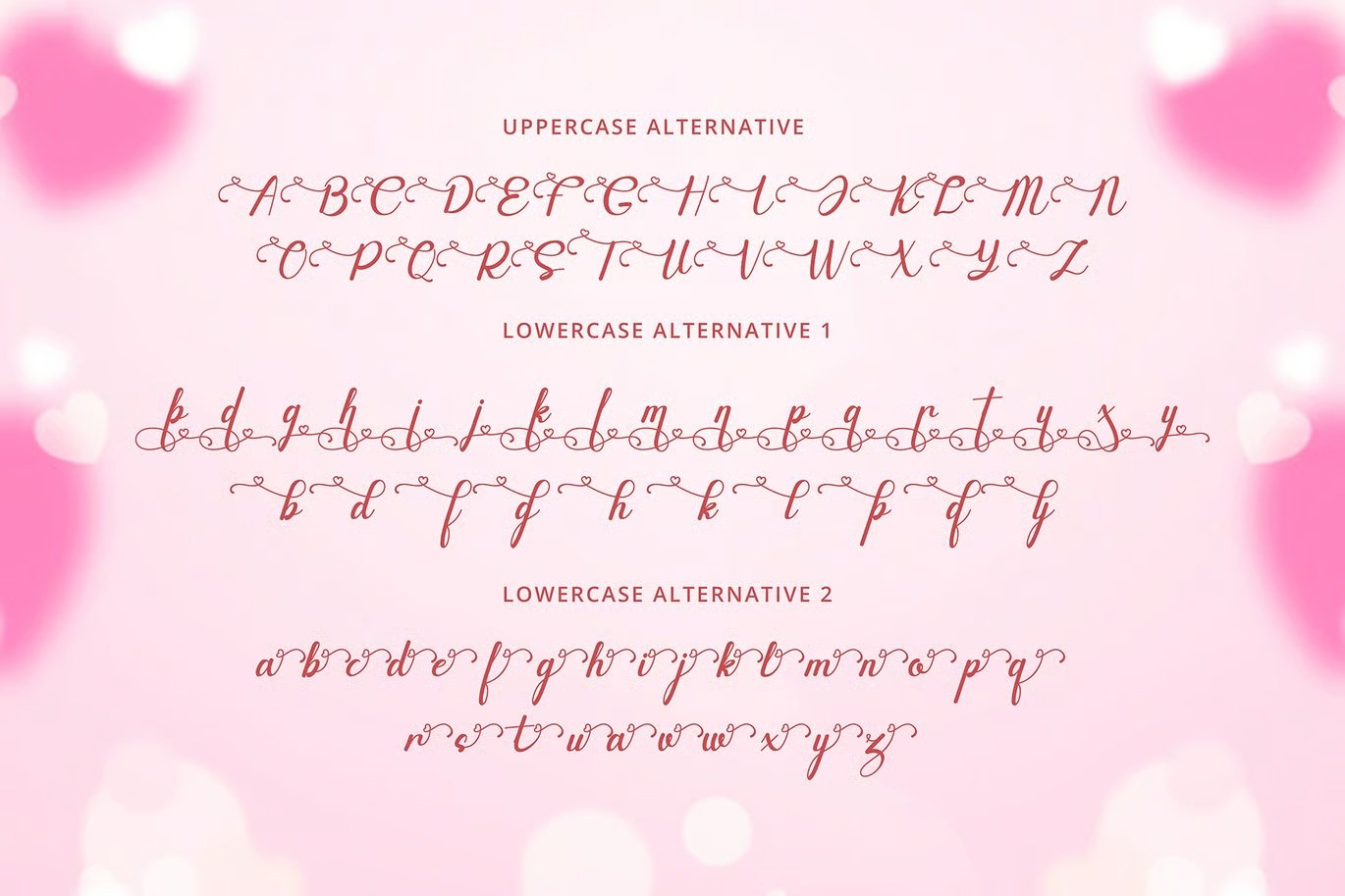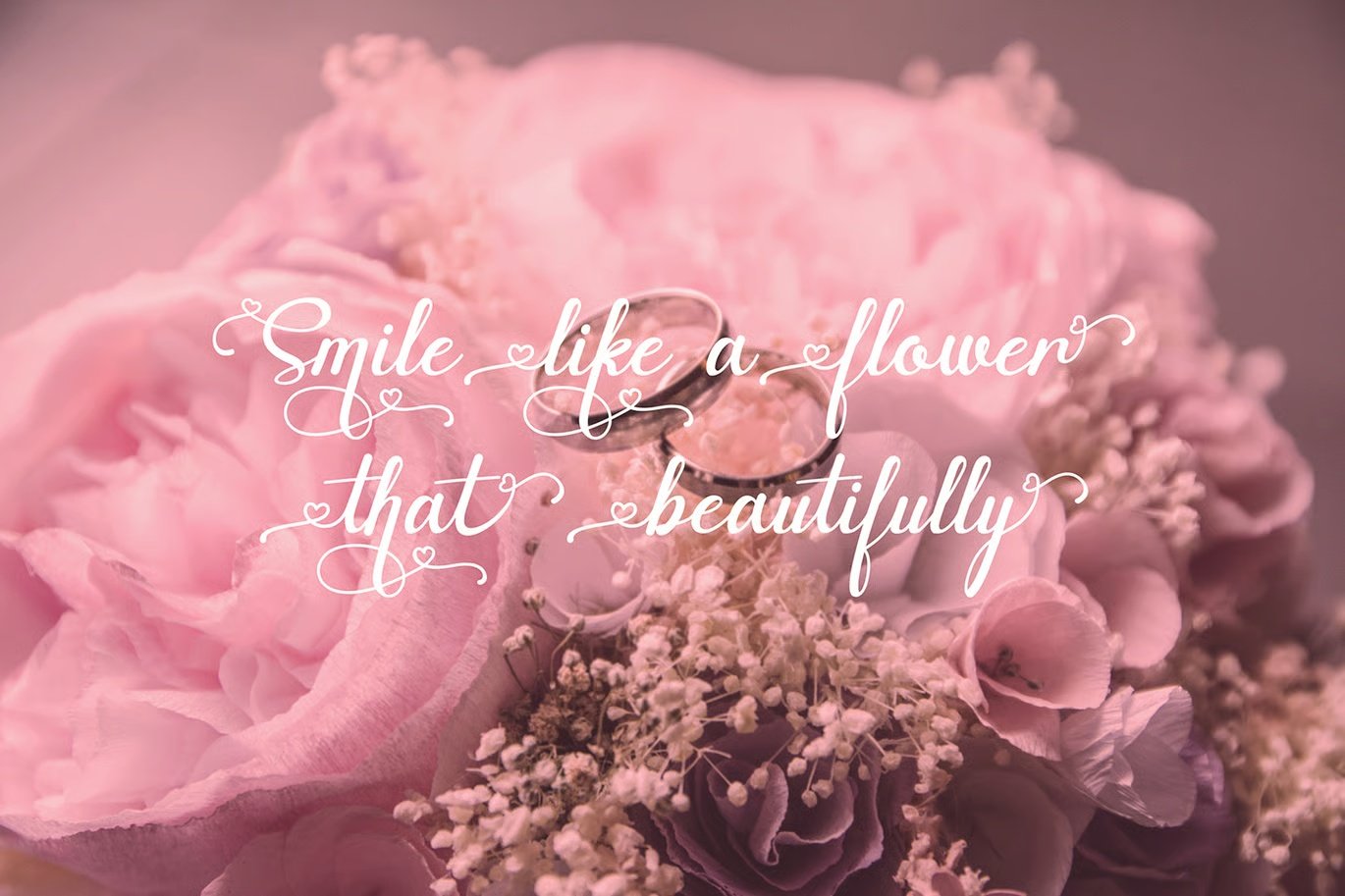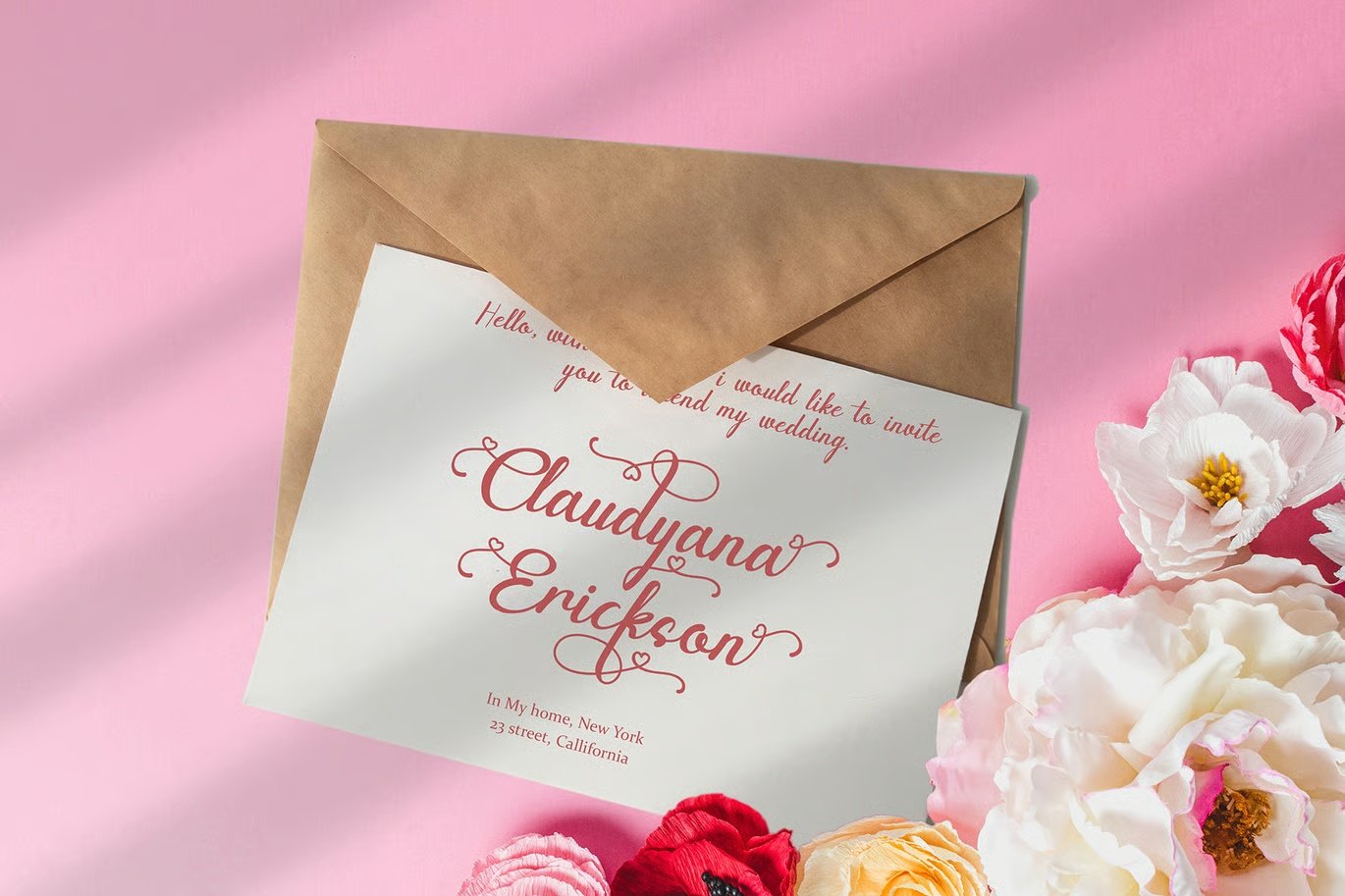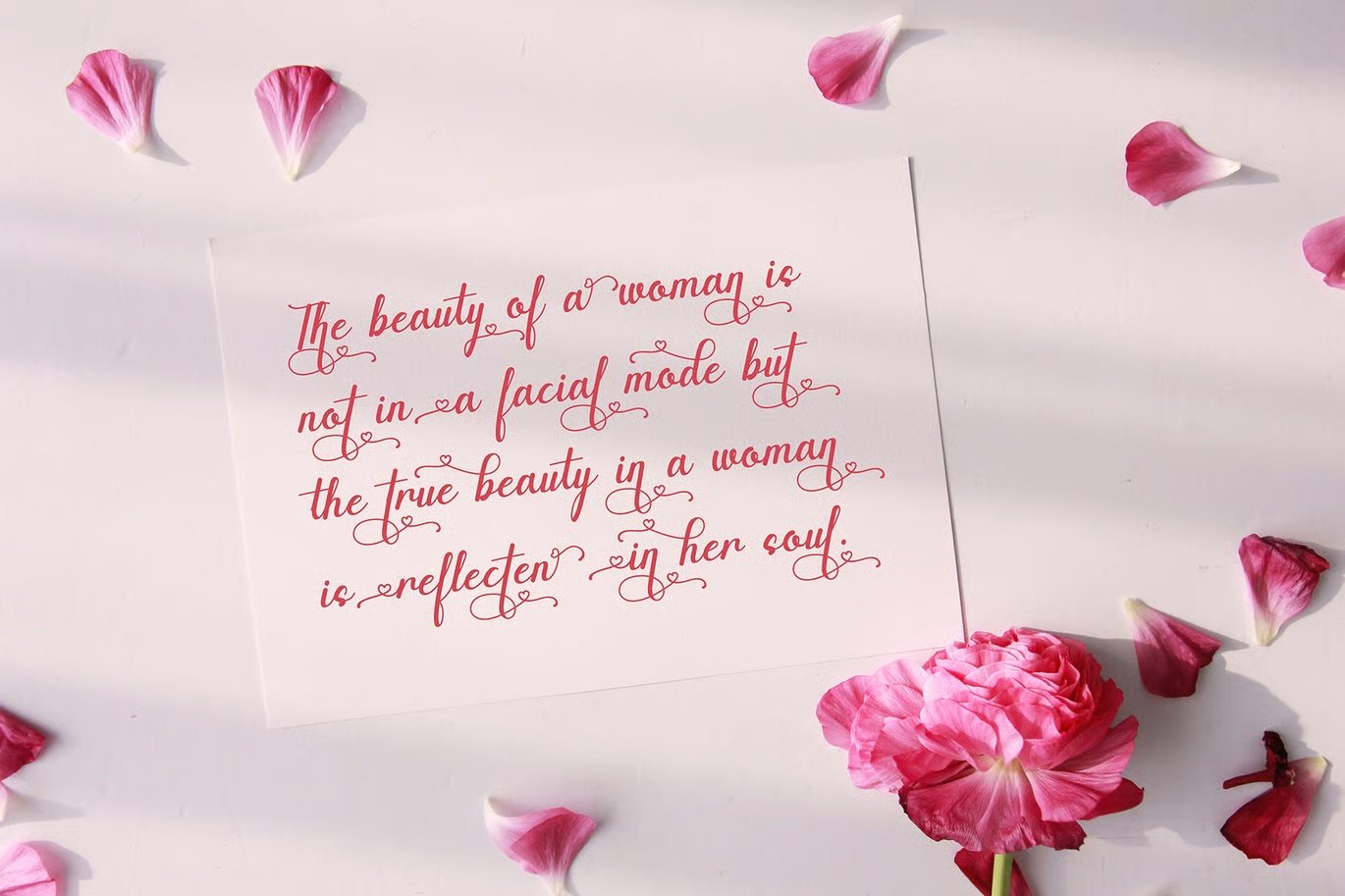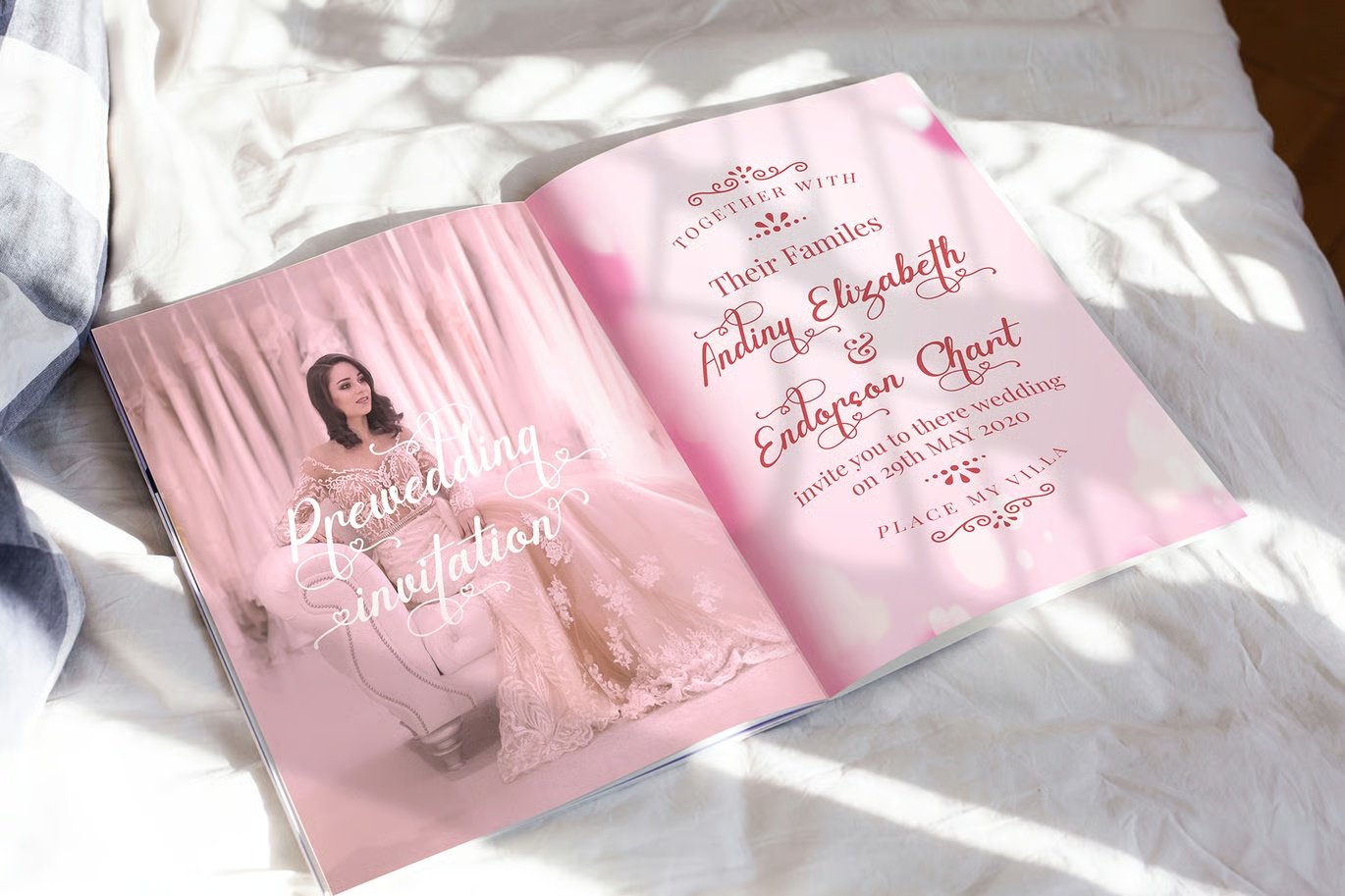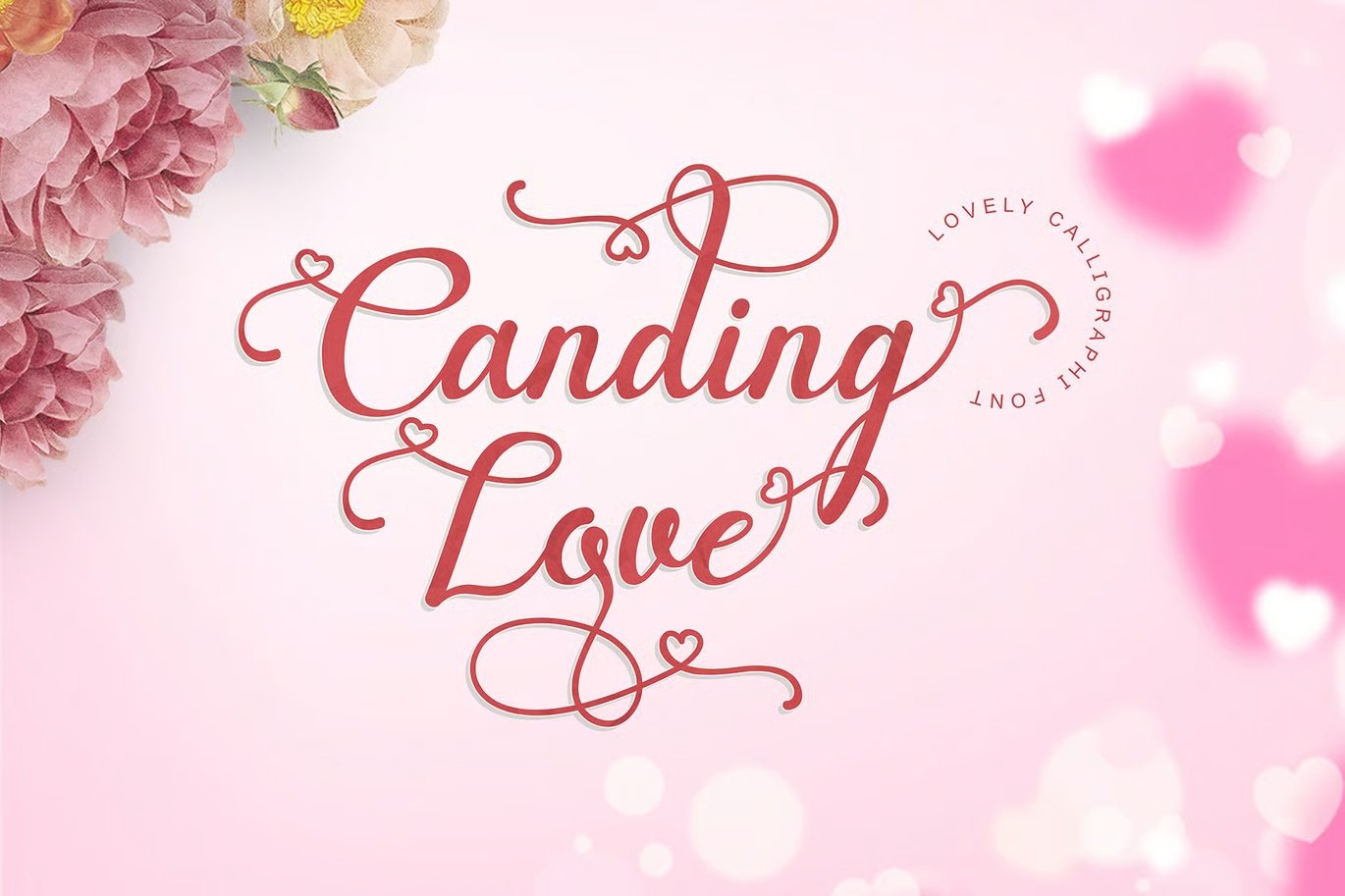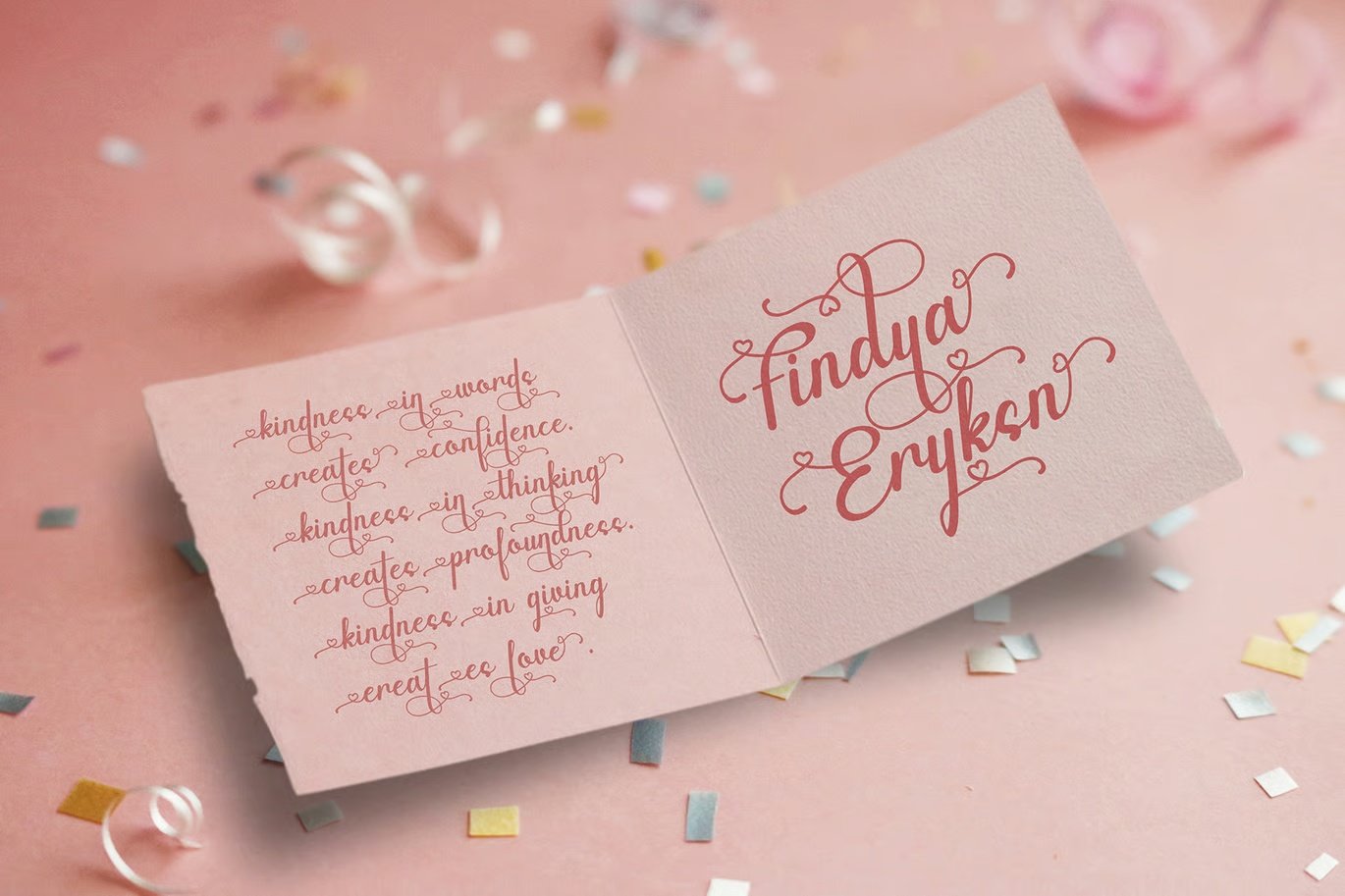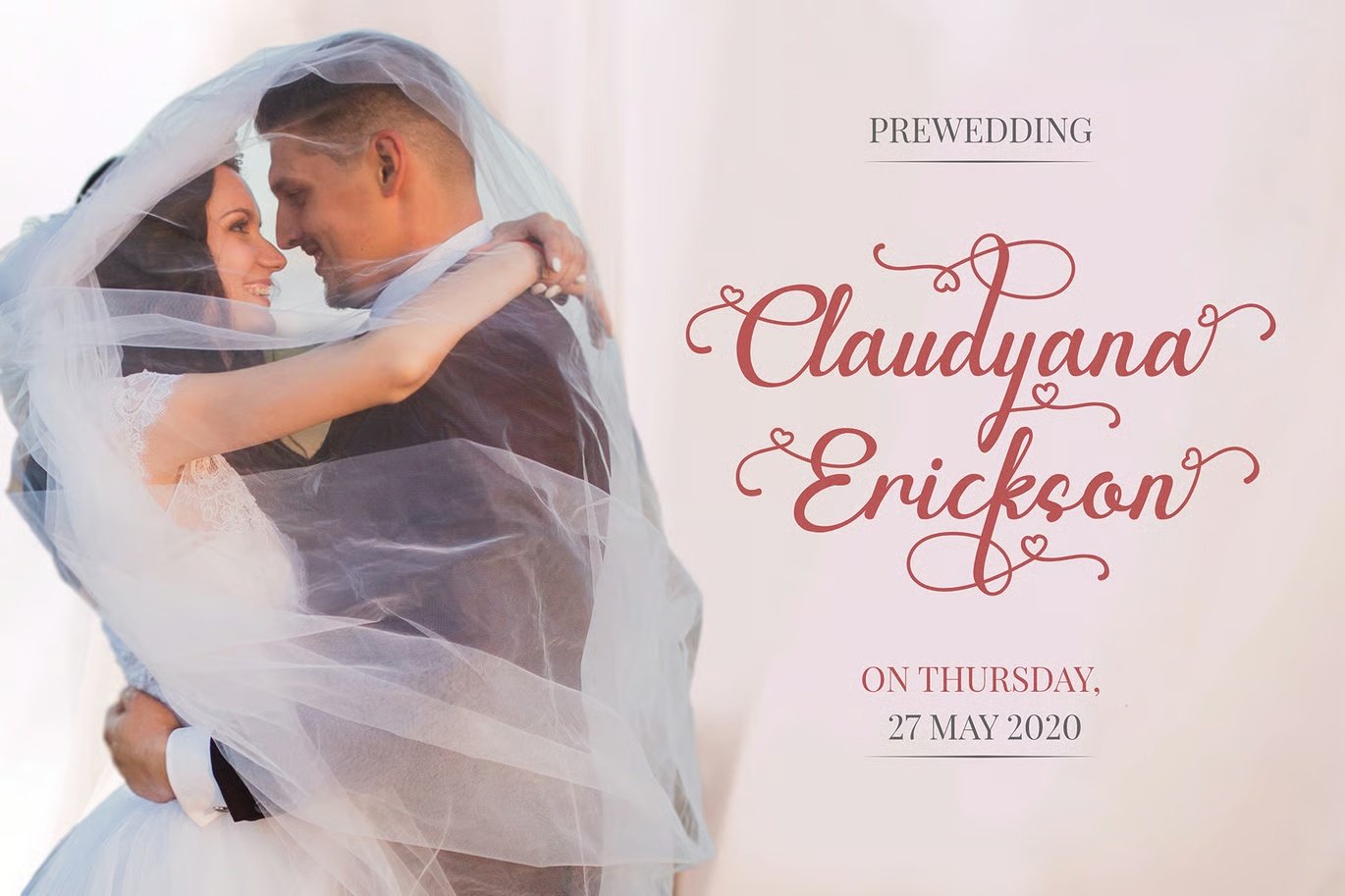
Canding Love is a scipt fontThis font can be used in various applications ranging from greeting cards, invitations, calligraphy that you can create beautifully. you can access all of the playful glyphs and swashes with ease! It also features a wealth of special features including alternate glyphs and ligatures. — Included